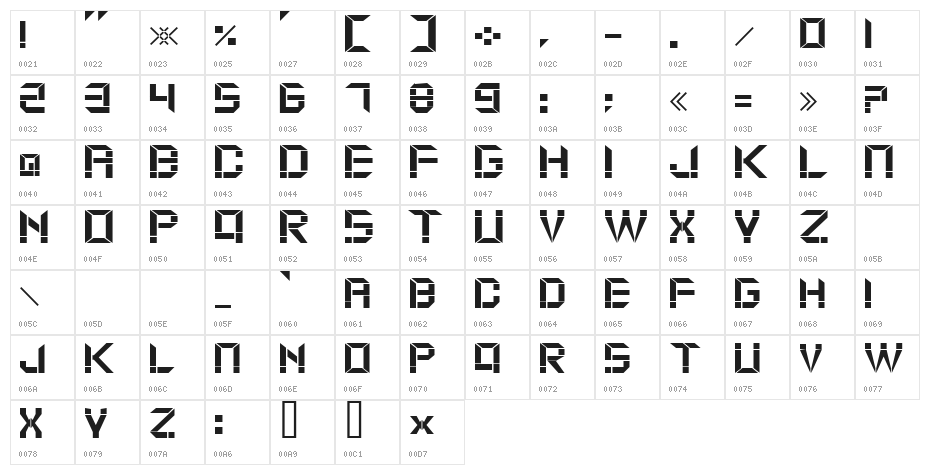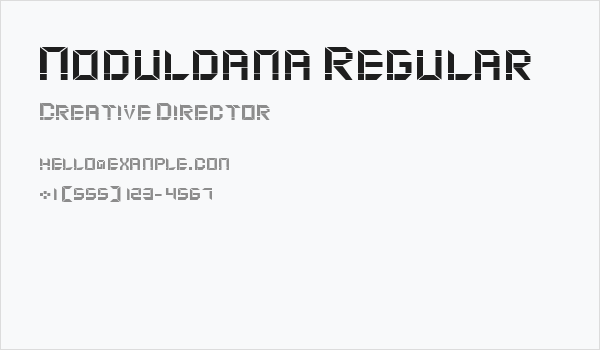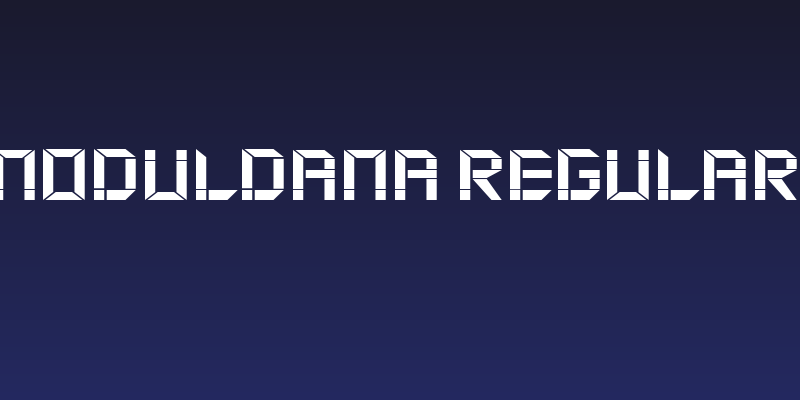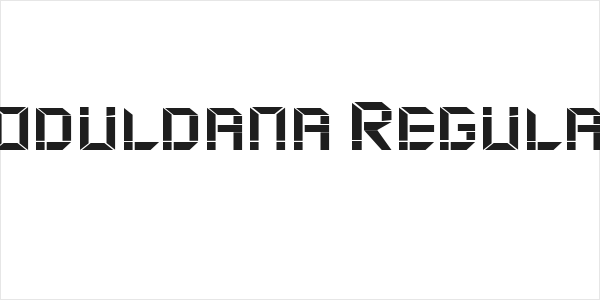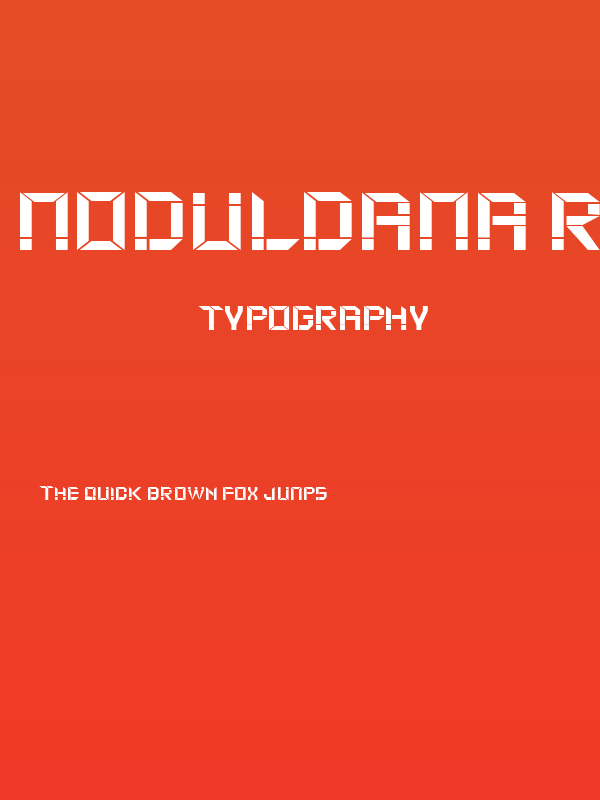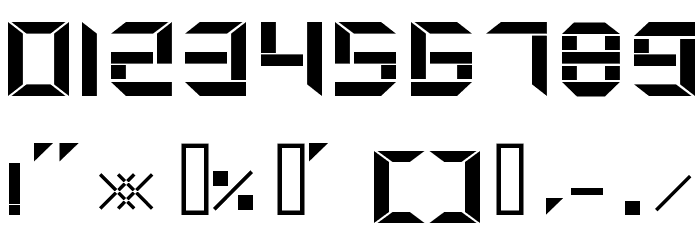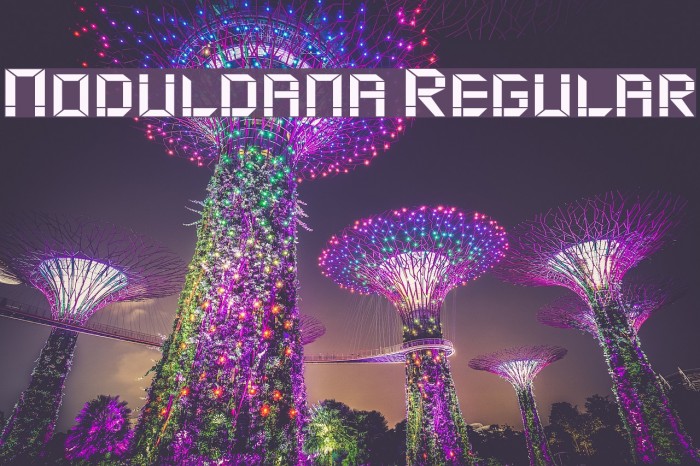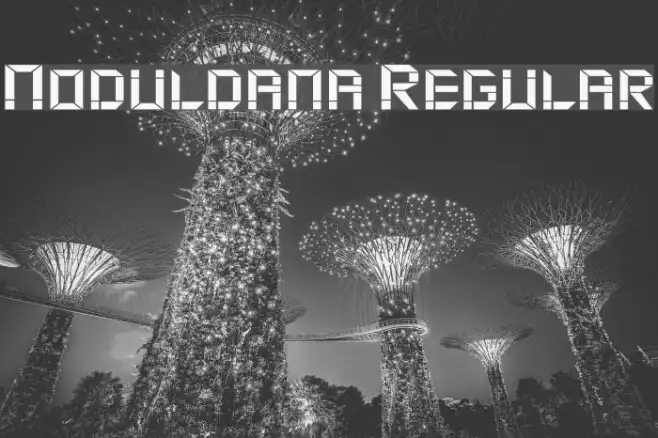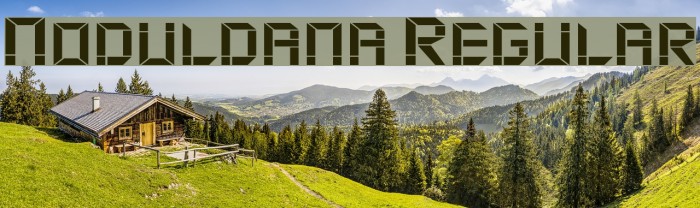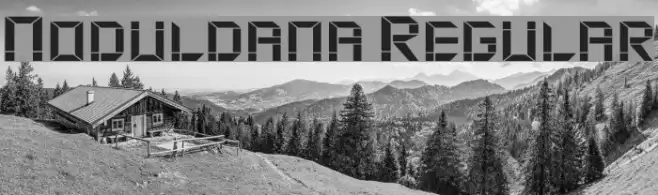
Moduldama Regular Font
Moduldama Regular Description
This font features a bold, geometric style with a modular design. Each character is constructed using a series of angular shapes, creating a futuristic and digital appearance. The font's structure is reminiscent of digital displays or mechanical components, with sharp edges and a consistent pattern throughout. The uppercase and lowercase letters maintain a uniform height, contributing to a cohesive look. Numbers and special characters follow the same design principles, ensuring a seamless integration across different uses. The font's distinct style makes it ideal for projects that require a modern, tech-inspired aesthetic.
| Proposed Projects | Ideal for technology branding, digital interfaces, video game graphics, and futuristic-themed posters. |